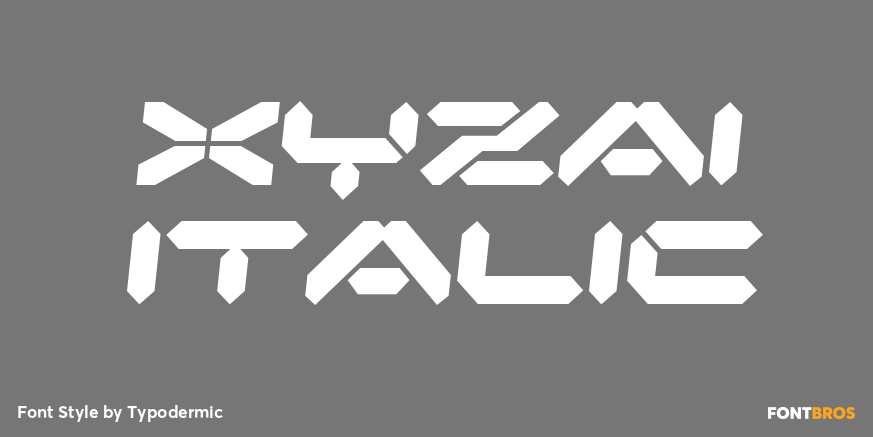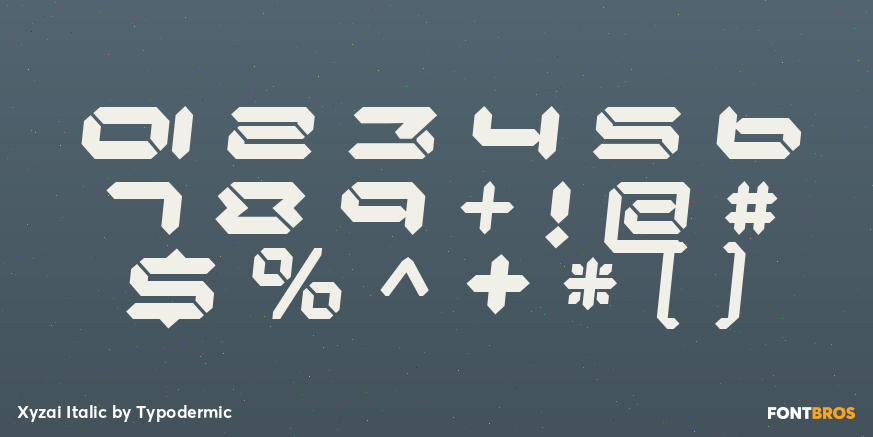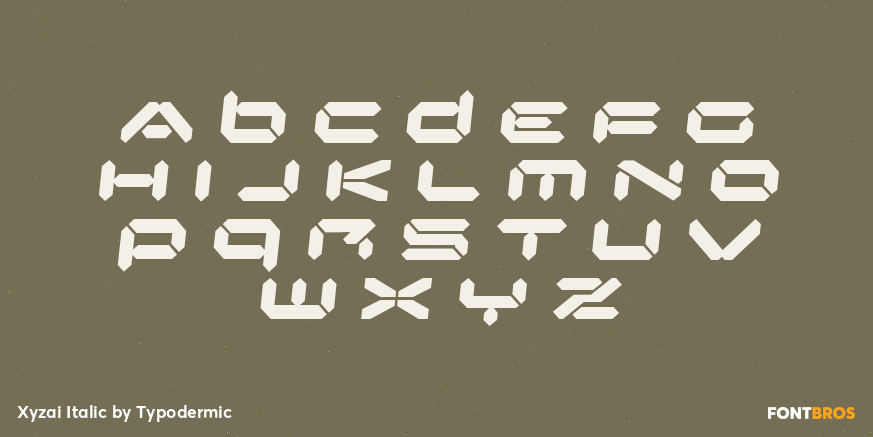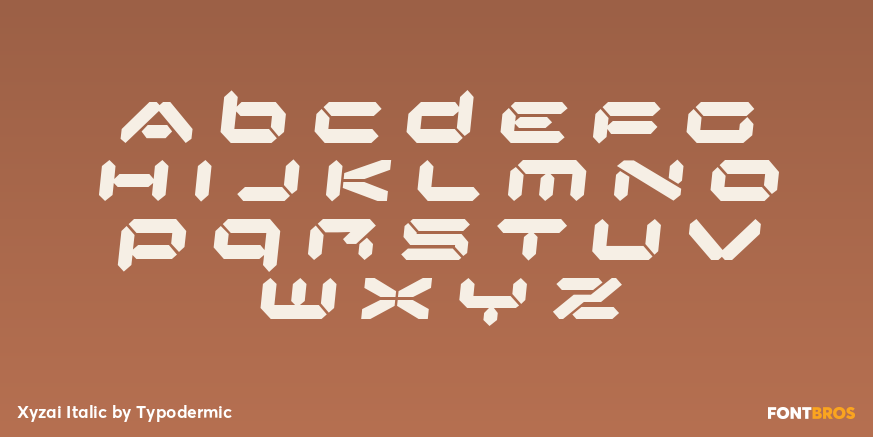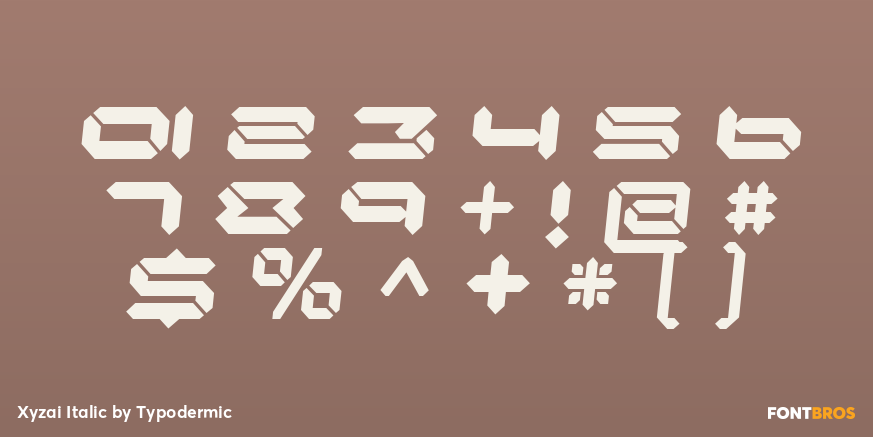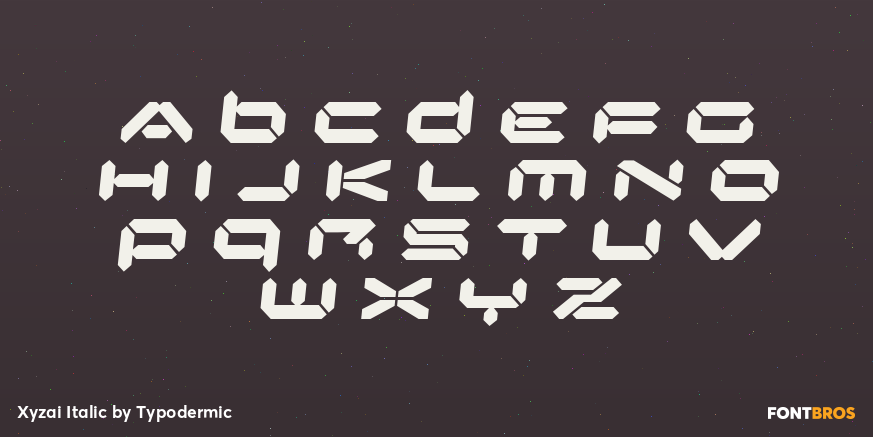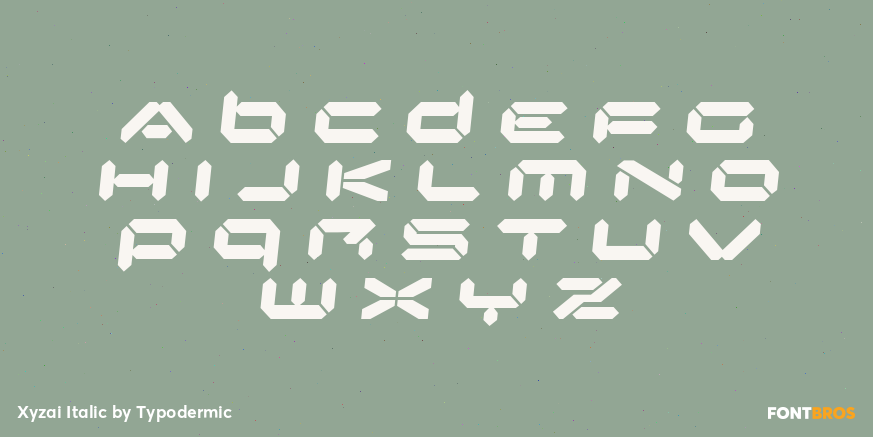
Xyzai Italic
Some display faces make reading easier. Xyzai makes recognition take a little longer. Its segmented construction pushes familiar letterforms far enough from convention that a word may need a second glance; once decoded, it begins to register as a distinctive shape rather than a sequence of ordinary letters.
That makes Xyzai especially effective for marques, badges and model names. Electric cars, concept vehicles and e-bikes increasingly combine faceted surfaces, integrated lighting and grid-like electronic details with minimal exterior lettering. On a rear badge, head-tube emblem, bicycle frame or trim designation, Xyzai’s segmented forms can feel closer to hardware than ordinary typography.
That slight resistance to reading becomes useful in this role. A model name does not have to explain itself from scratch every time it appears. The first encounter may involve deciphering the word; after that, its silhouette can function almost like an emblem. Xyzai turns reading into recognition.
Machine vision, AI perception and cryptography provide more conceptual uses. Exhibitions about computer vision, OCR or human-versus-machine recognition can use Xyzai to make the act of decoding part of the subject. Cipher challenges, security events and puzzle graphics can exploit the same friction for short names and headings while conventional typography handles the instructions.
Xyzai is not intended for information that must be understood instantly. Its strength appears when a few important words are allowed to resist immediate comprehension: an electric-vehicle badge, an e-bike model name, a machine-vision exhibition title or a cryptography challenge. It slows the viewer down just enough for the word to become something worth recognizing again.